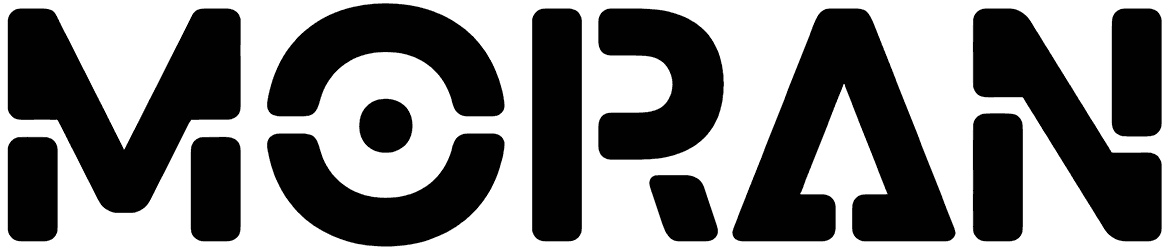
Breaking Stencil News Font
Capturing boldness in its own artistic way, Breaking Stencil News instantly rocks its way to the top of the list for your important designs. Even with no small letters to offer, it can still nail your lettering with its huge blocky characters.
You’re going to need a stencil font for your war action games, boy wallpapers, or T-shirts anyway, and what’s better for that than our Breaking Stencil News? Thanks to the round style, your words won’t sound that harsh.
Breaking Stencil News
Designed by: Woodcutter